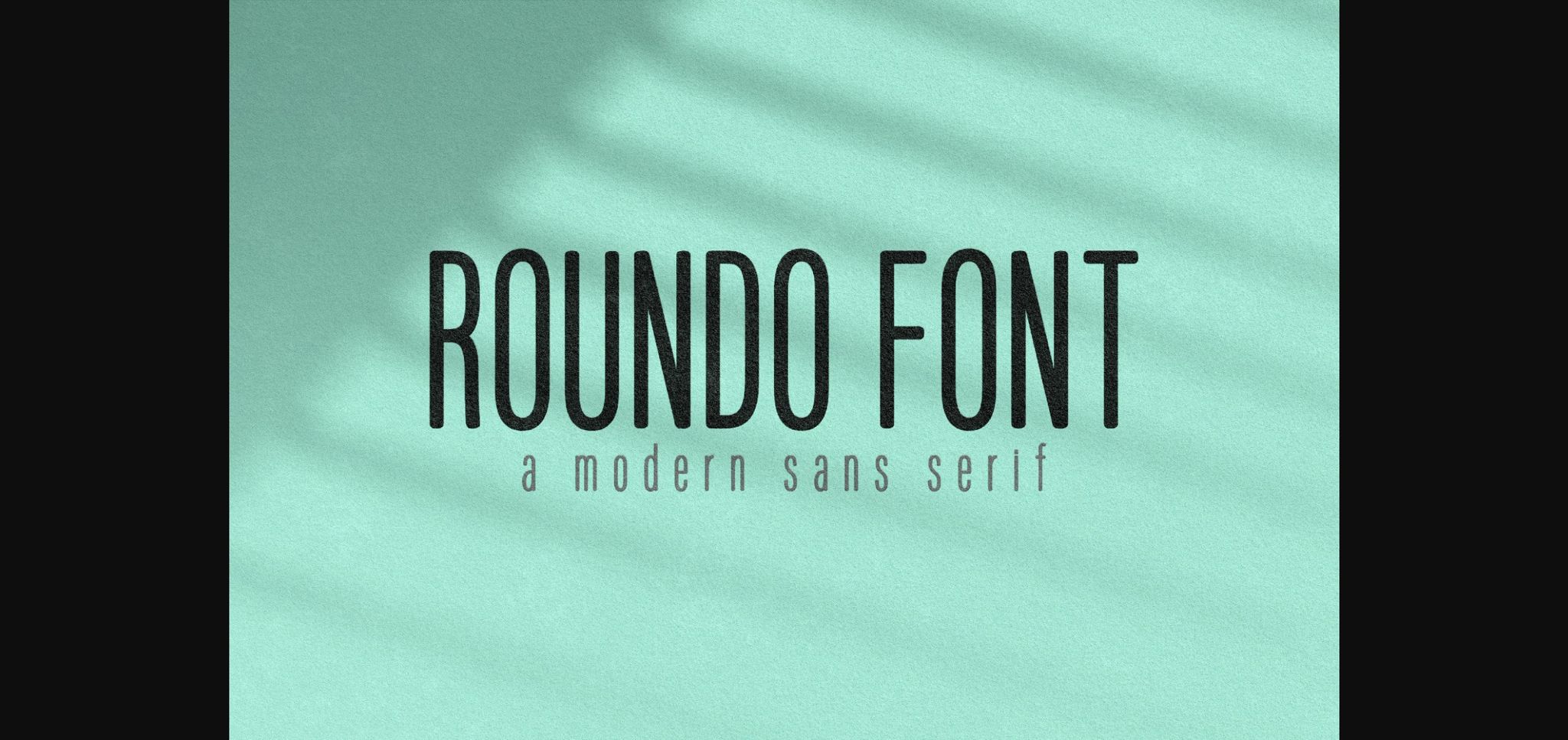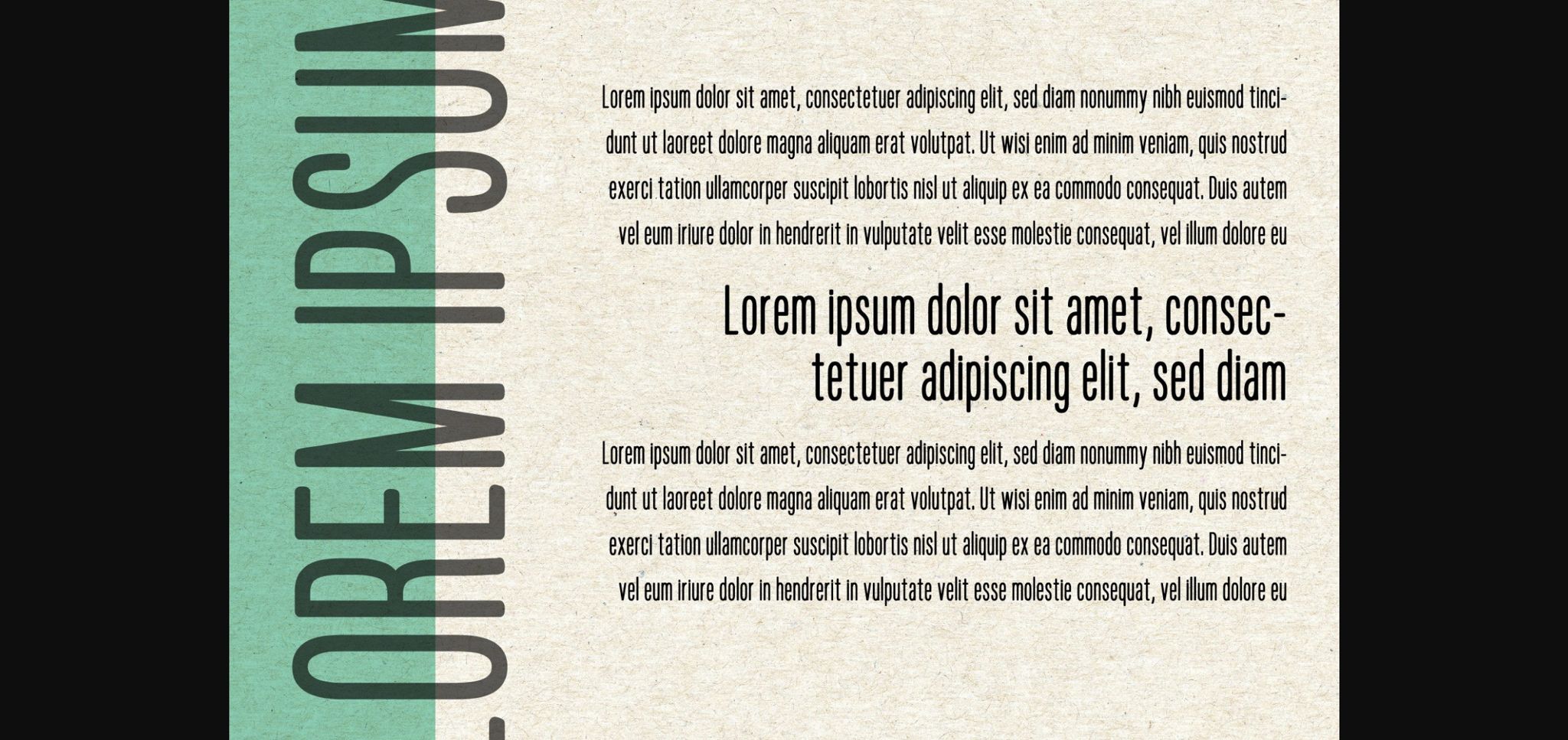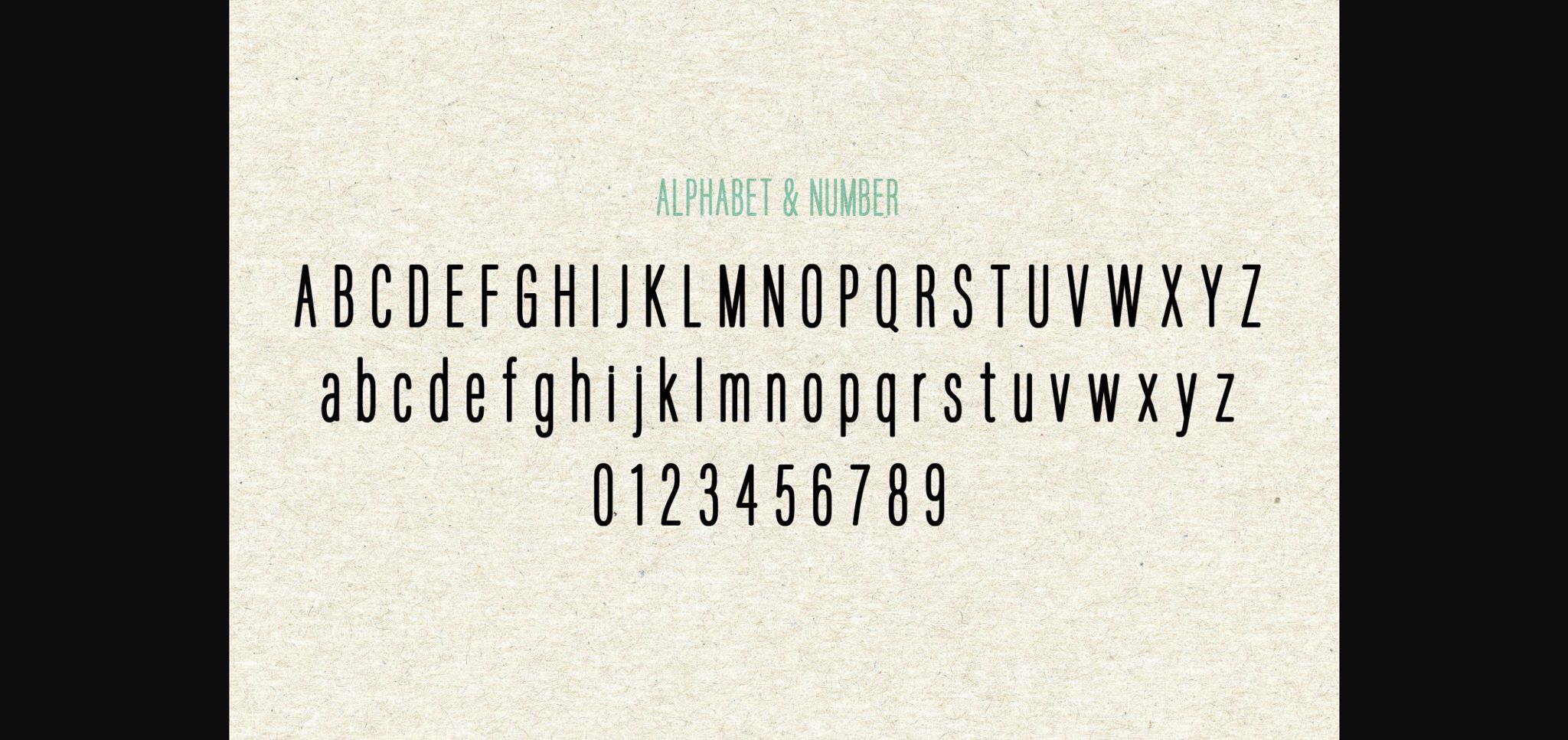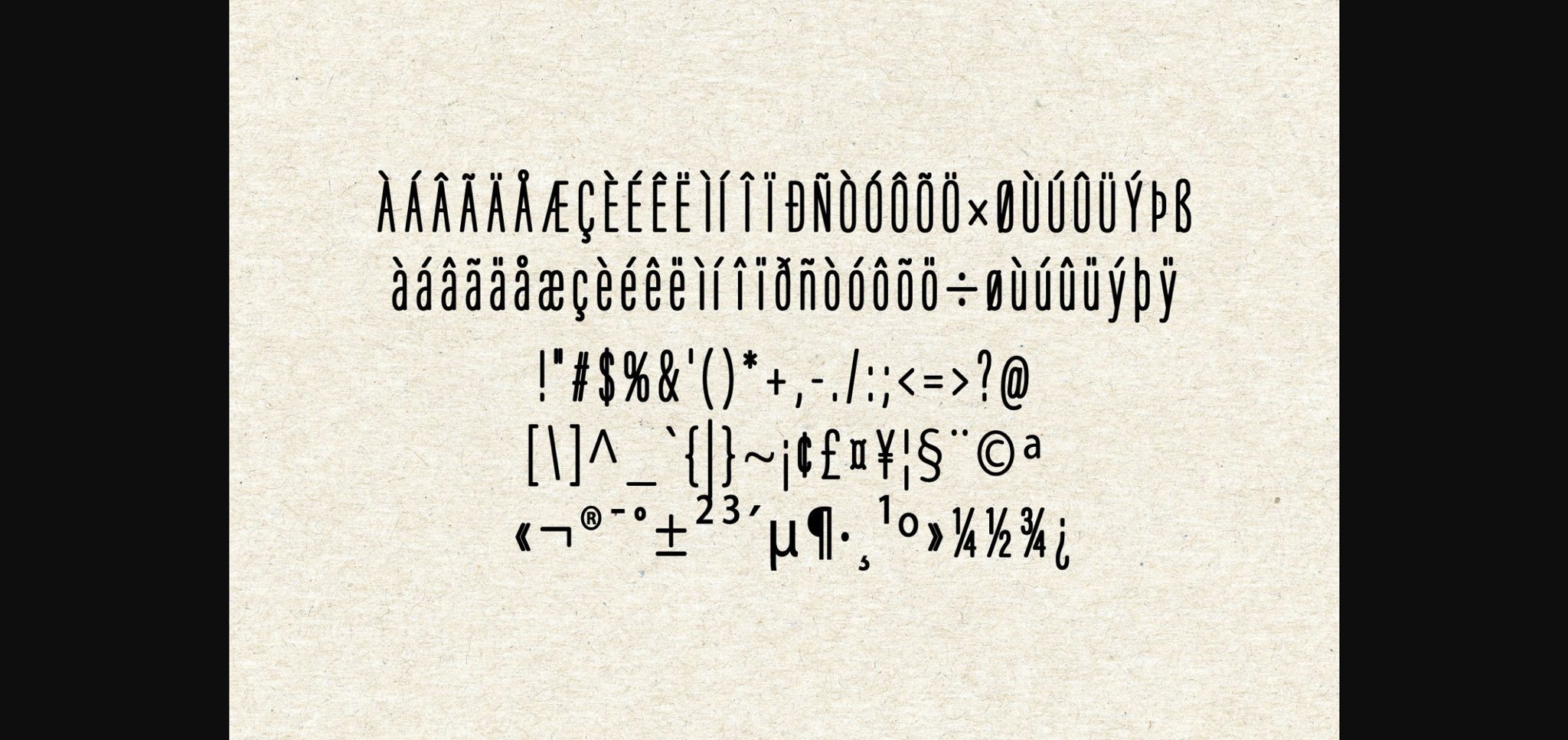
About Roundo Font
Roundo is a modern sans serif to complement every project you’re working on.
Use it to create beautiful headings, gorgeous invitations, stunning logos, and so much more!! Perfect for displays, headers, invitations, save-the-dates, weddings, and so much more!